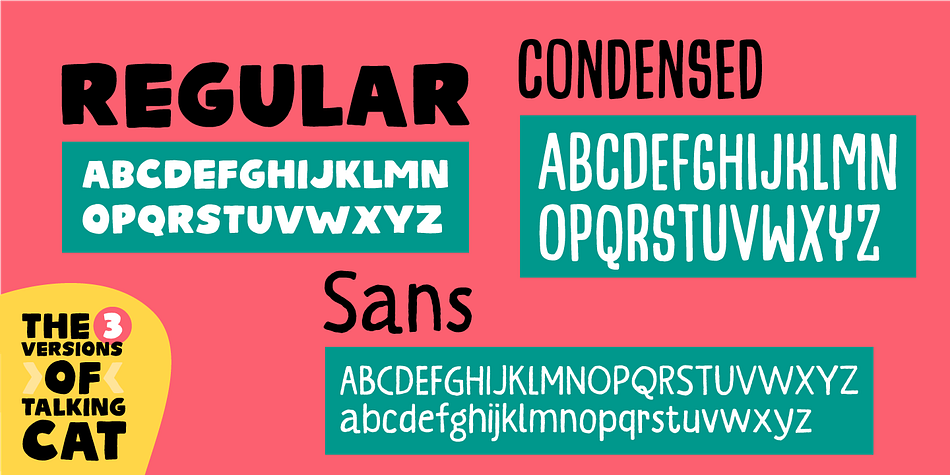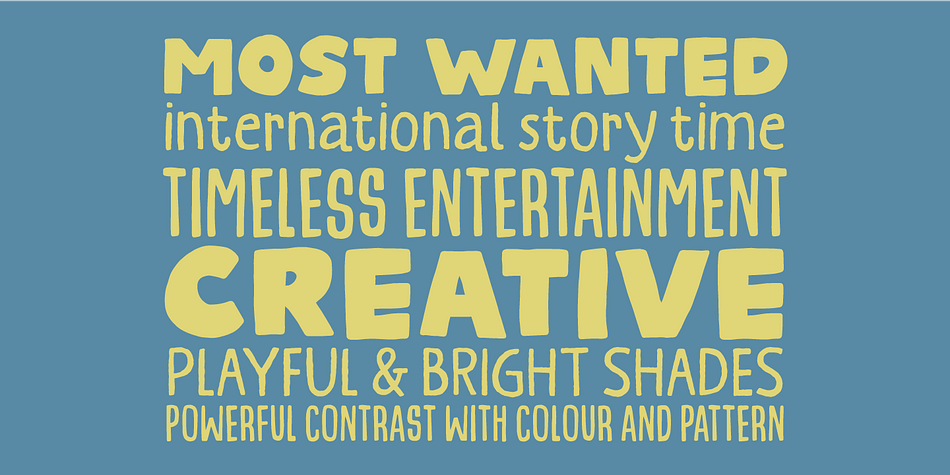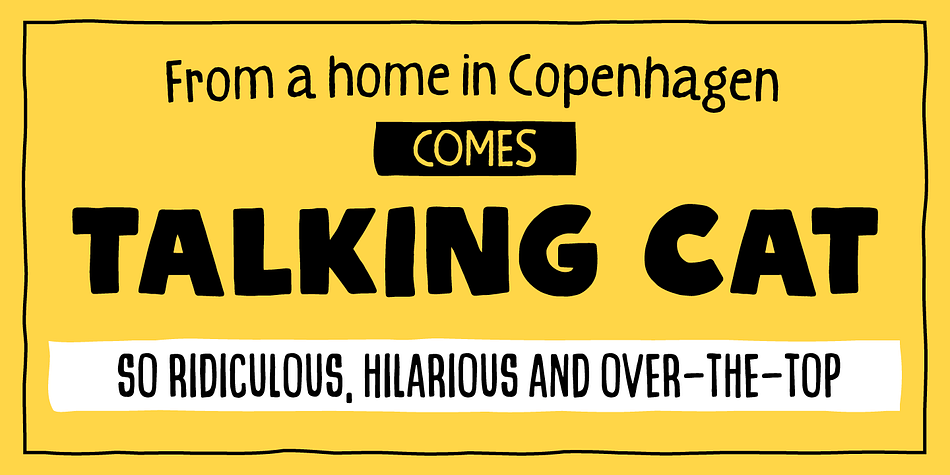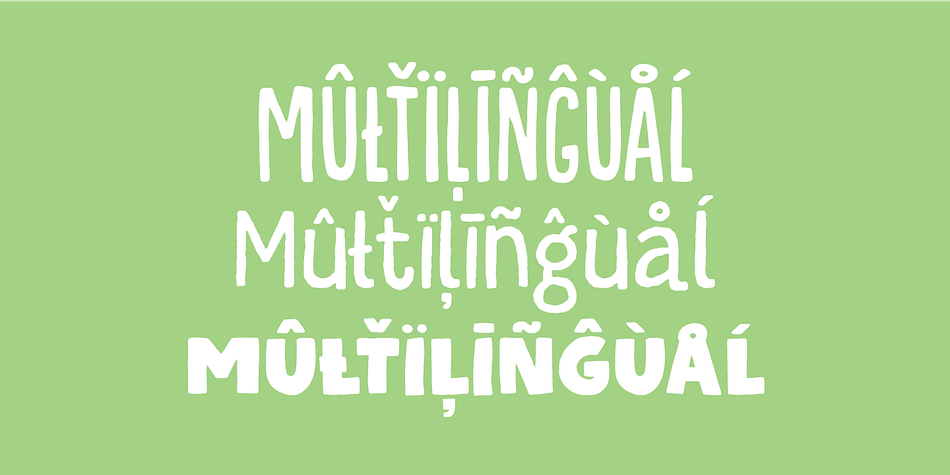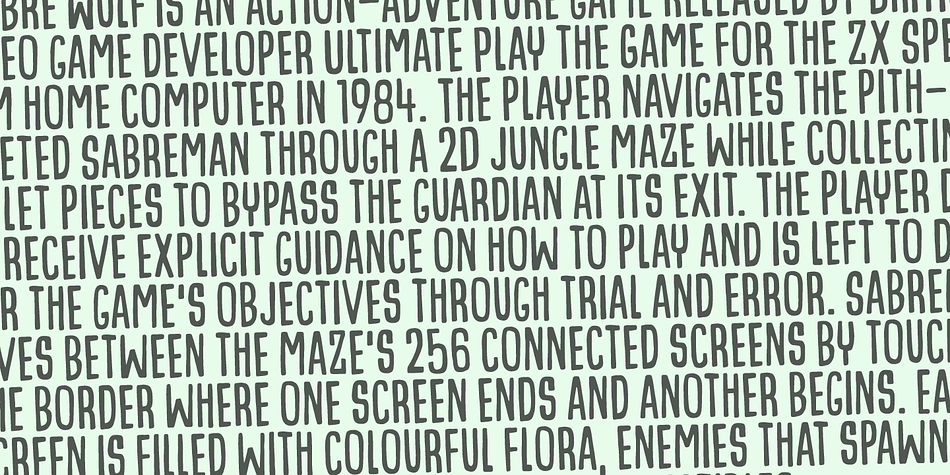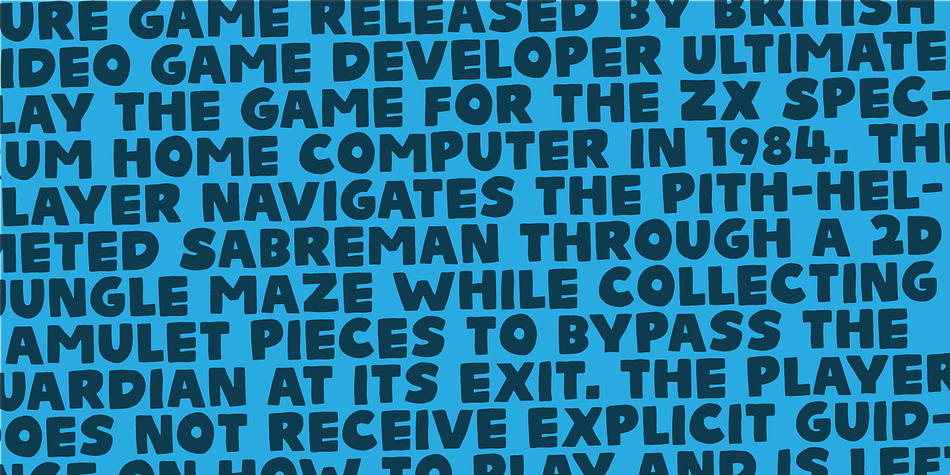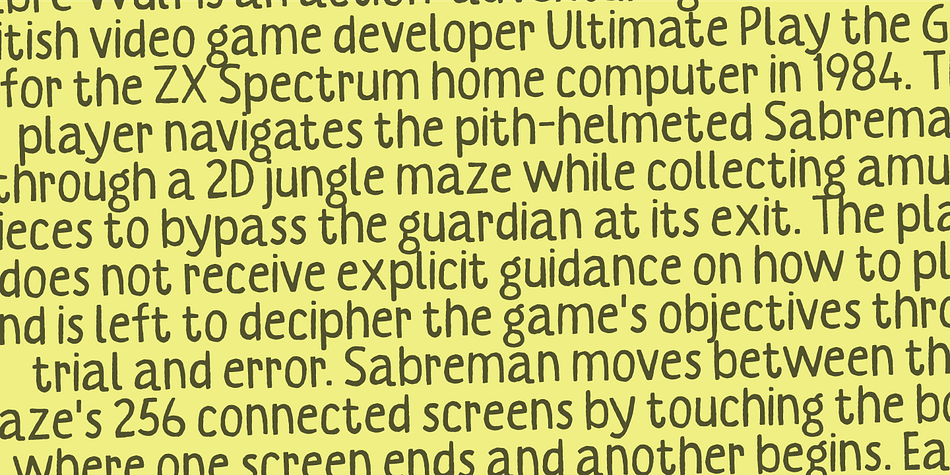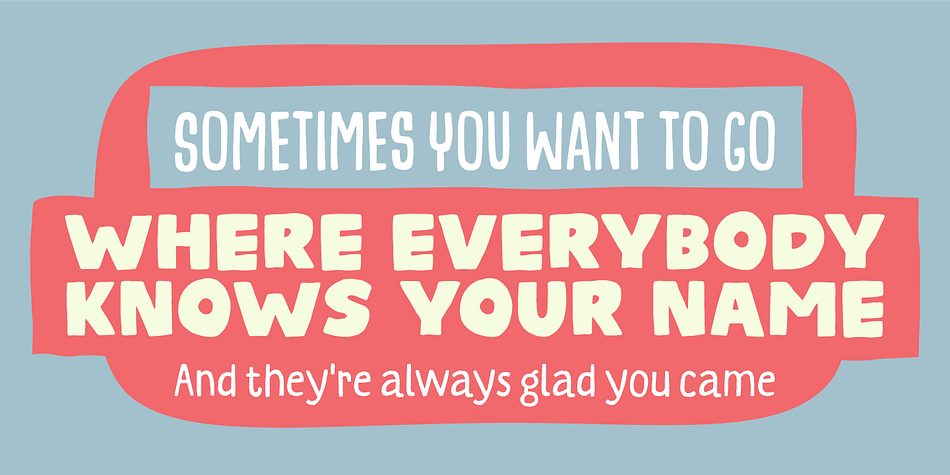
Designed by Jakob Fischer, Talking Cat is a hand display, hand drawn and kids font family. This typeface has six styles and was published by Bogstav.
There is no such thing as a talking cat, however, you can often find these in adventures, movies and other stories. At least, now you can have your own font called “Talking Cat”, and perhaps even your cat will like it! Mine did!
Talking Cat works very well with packaging, toys, posters, postcards or perhaps even flyers - the smoothly rounded edges makes sure your design keeps that handmade look!